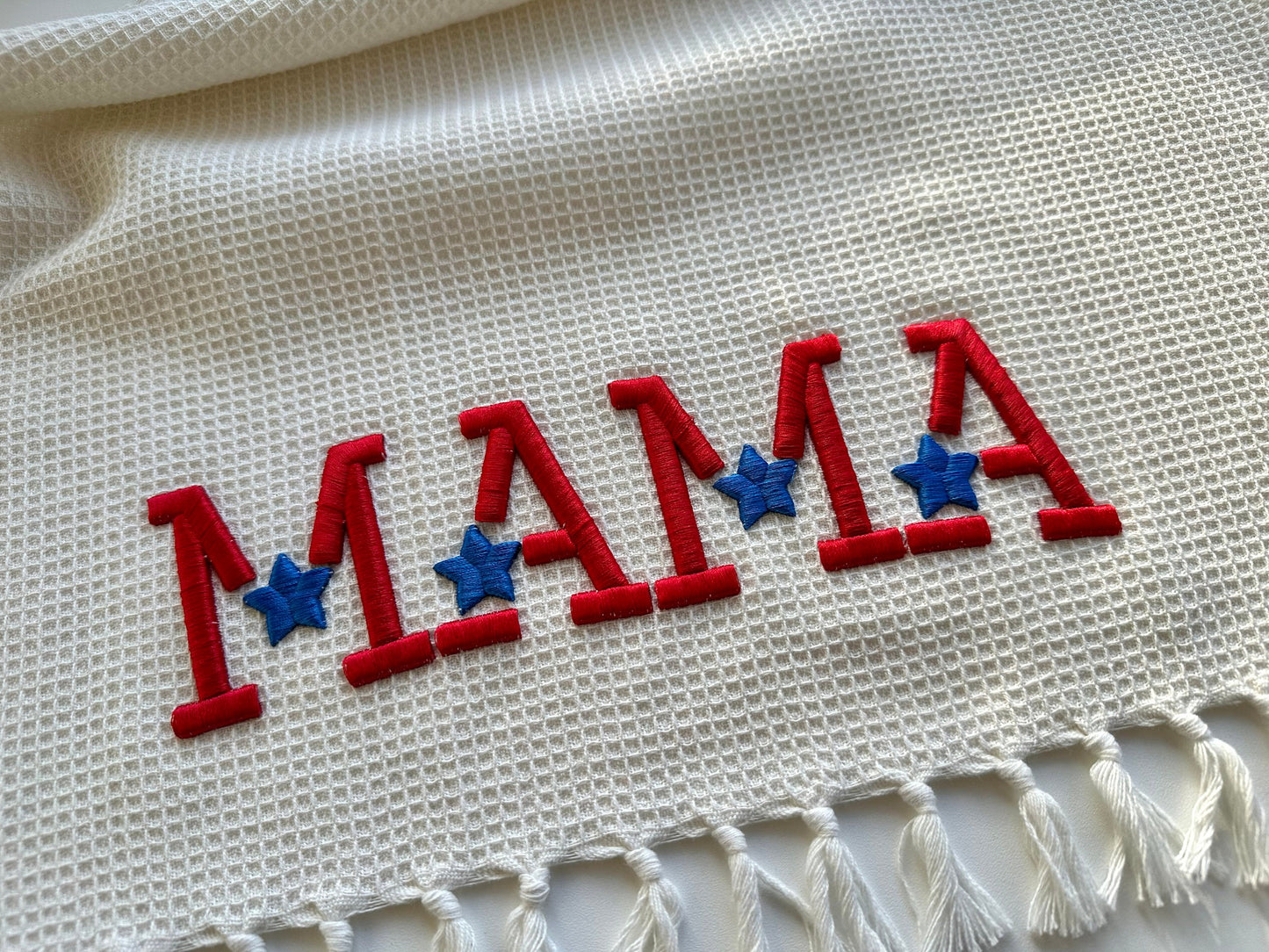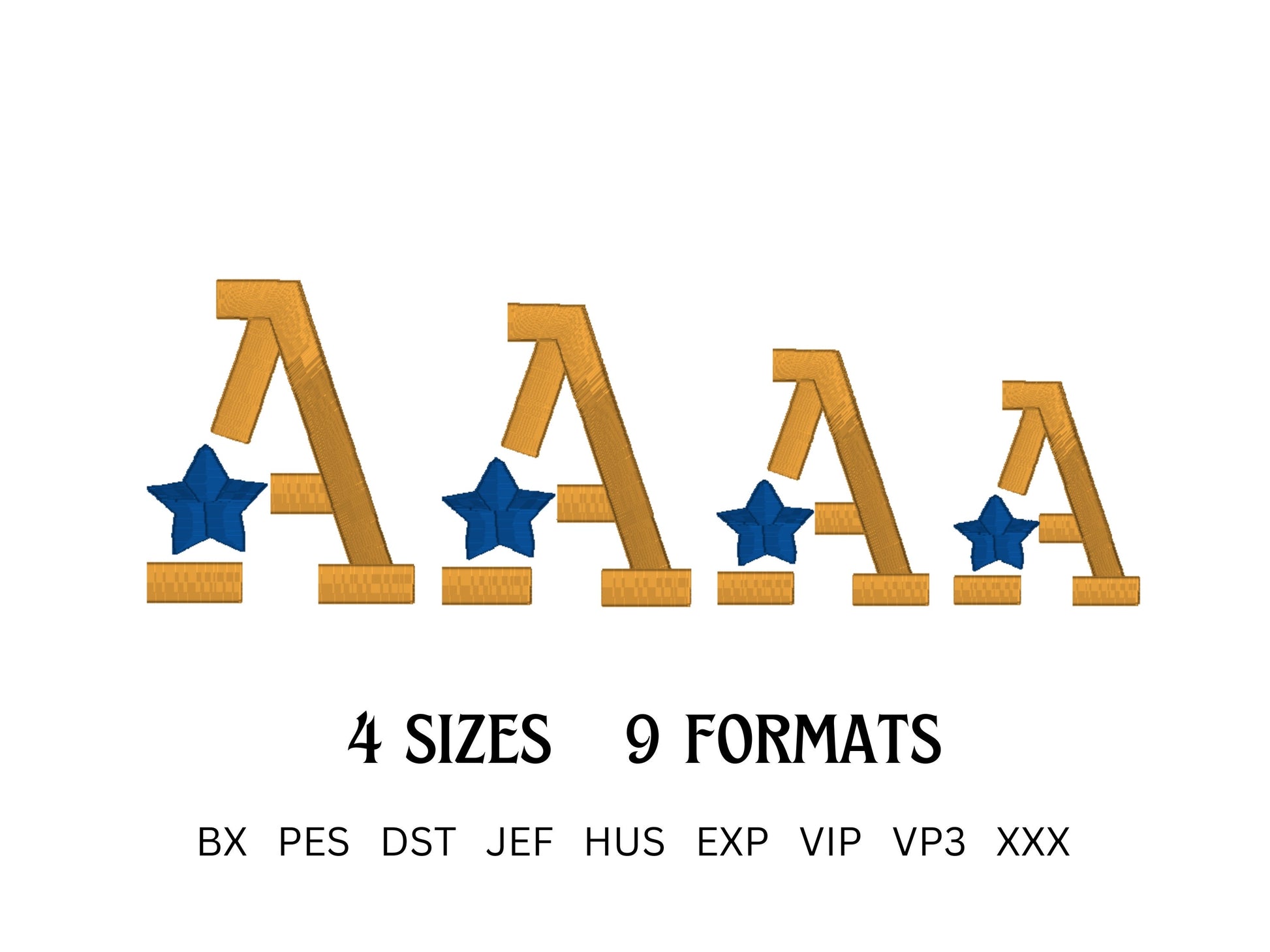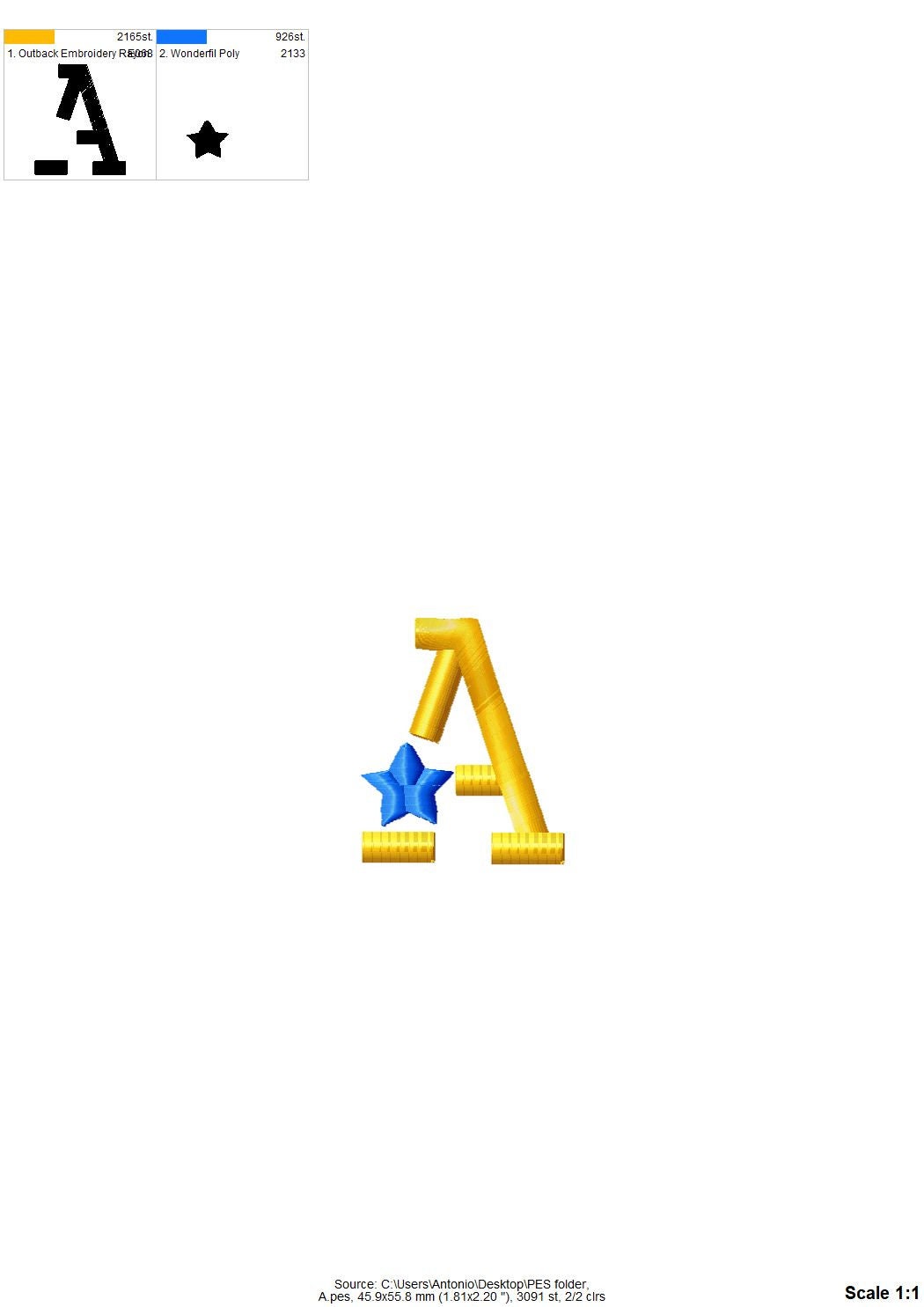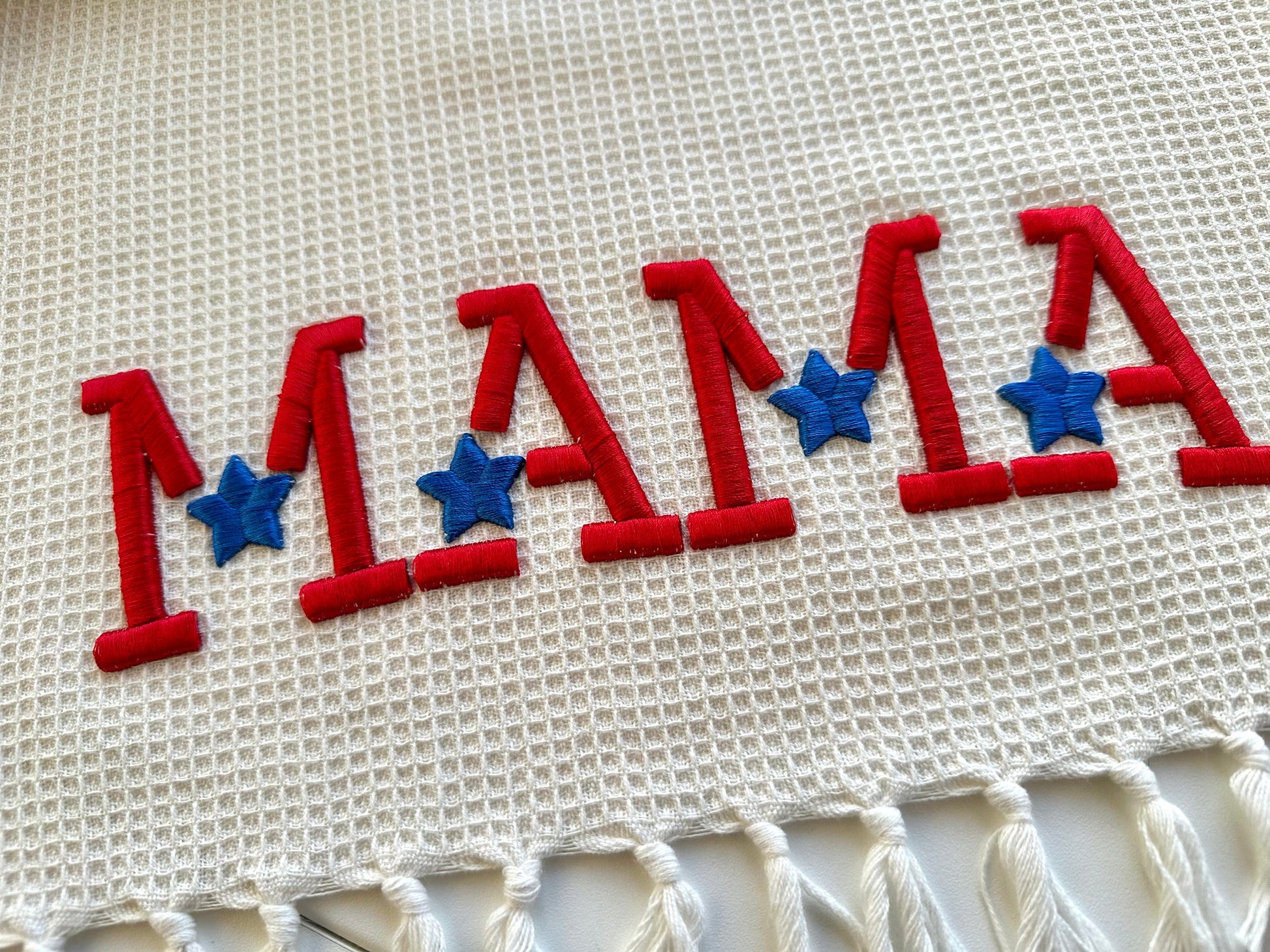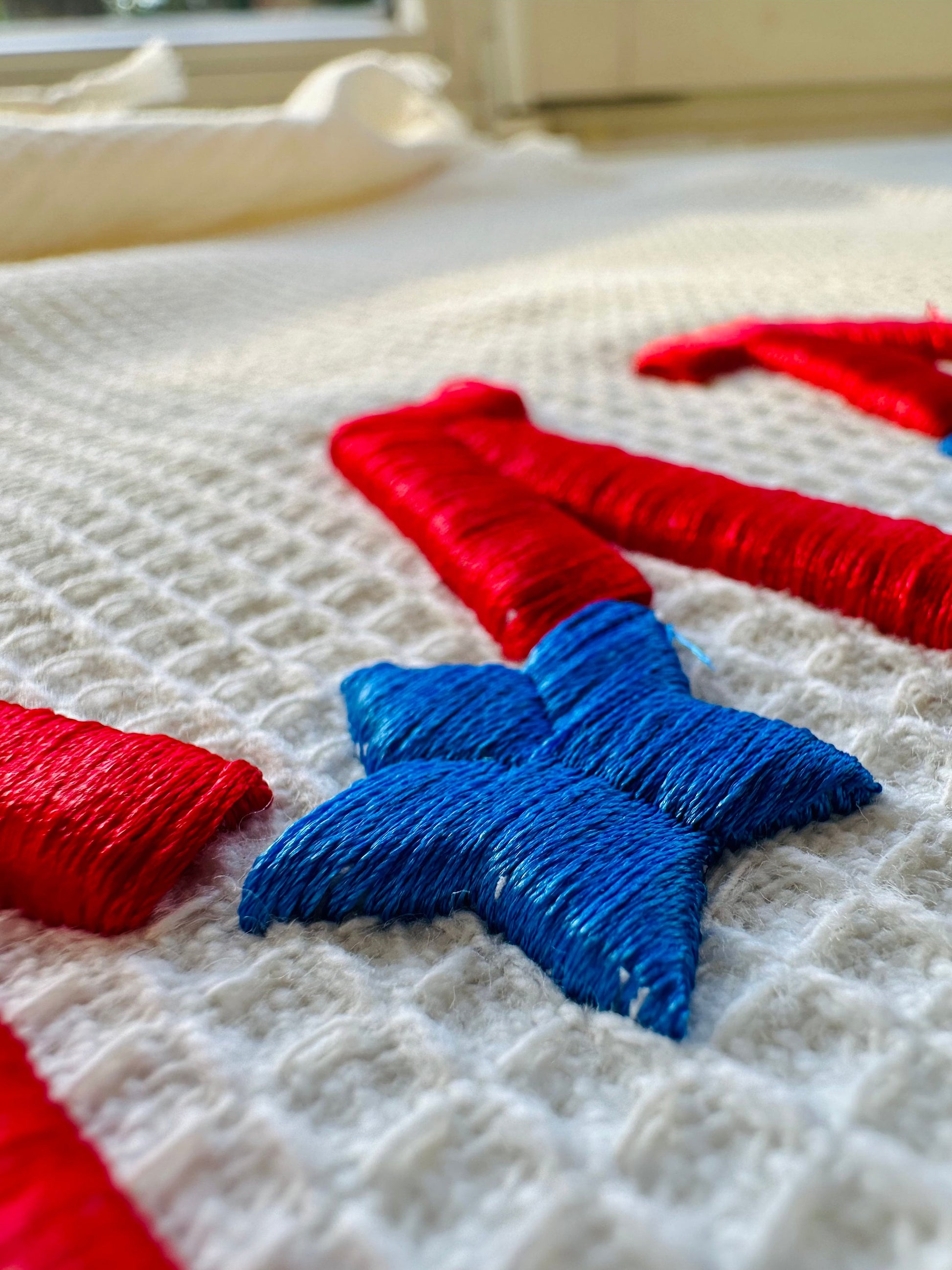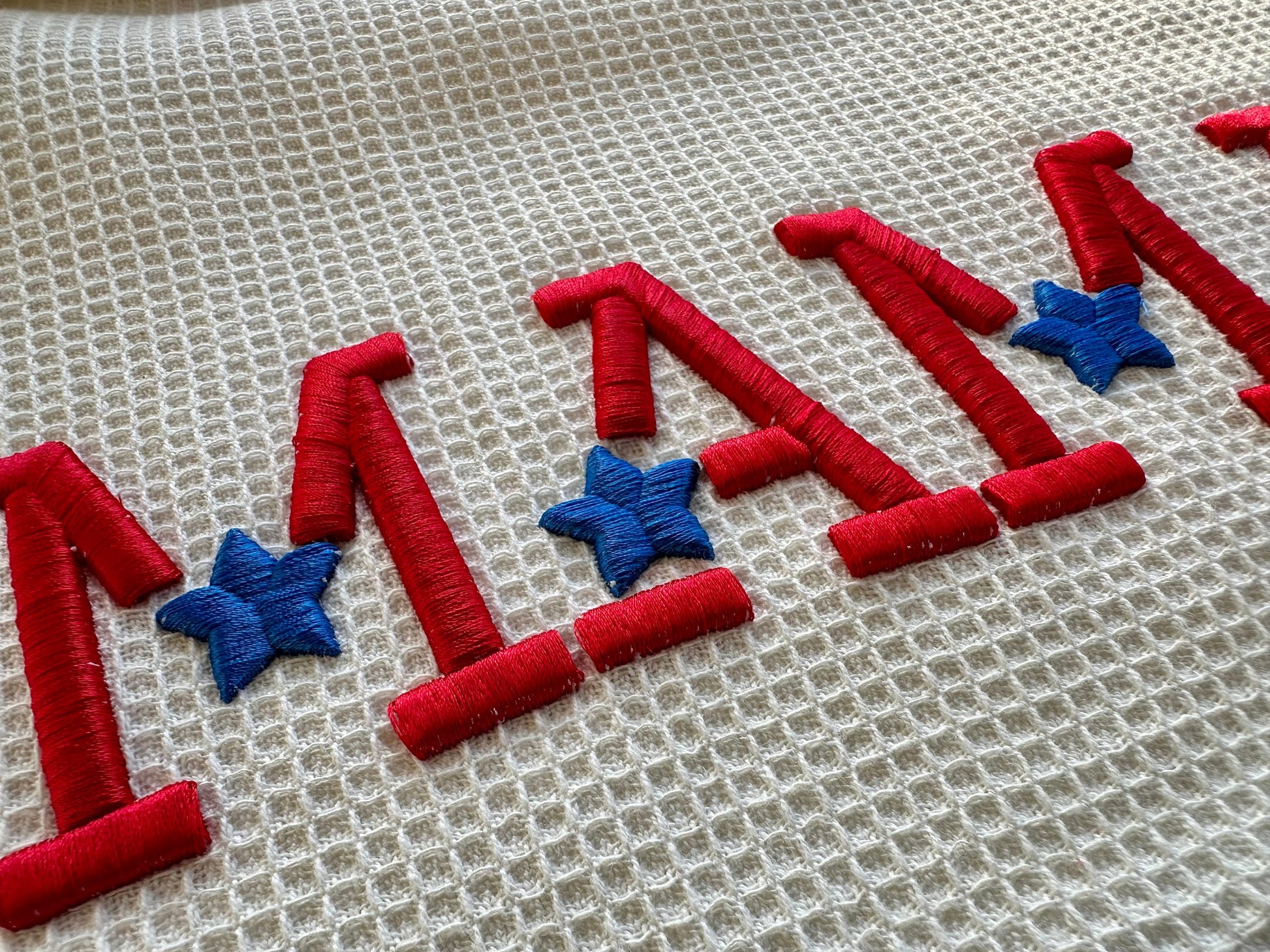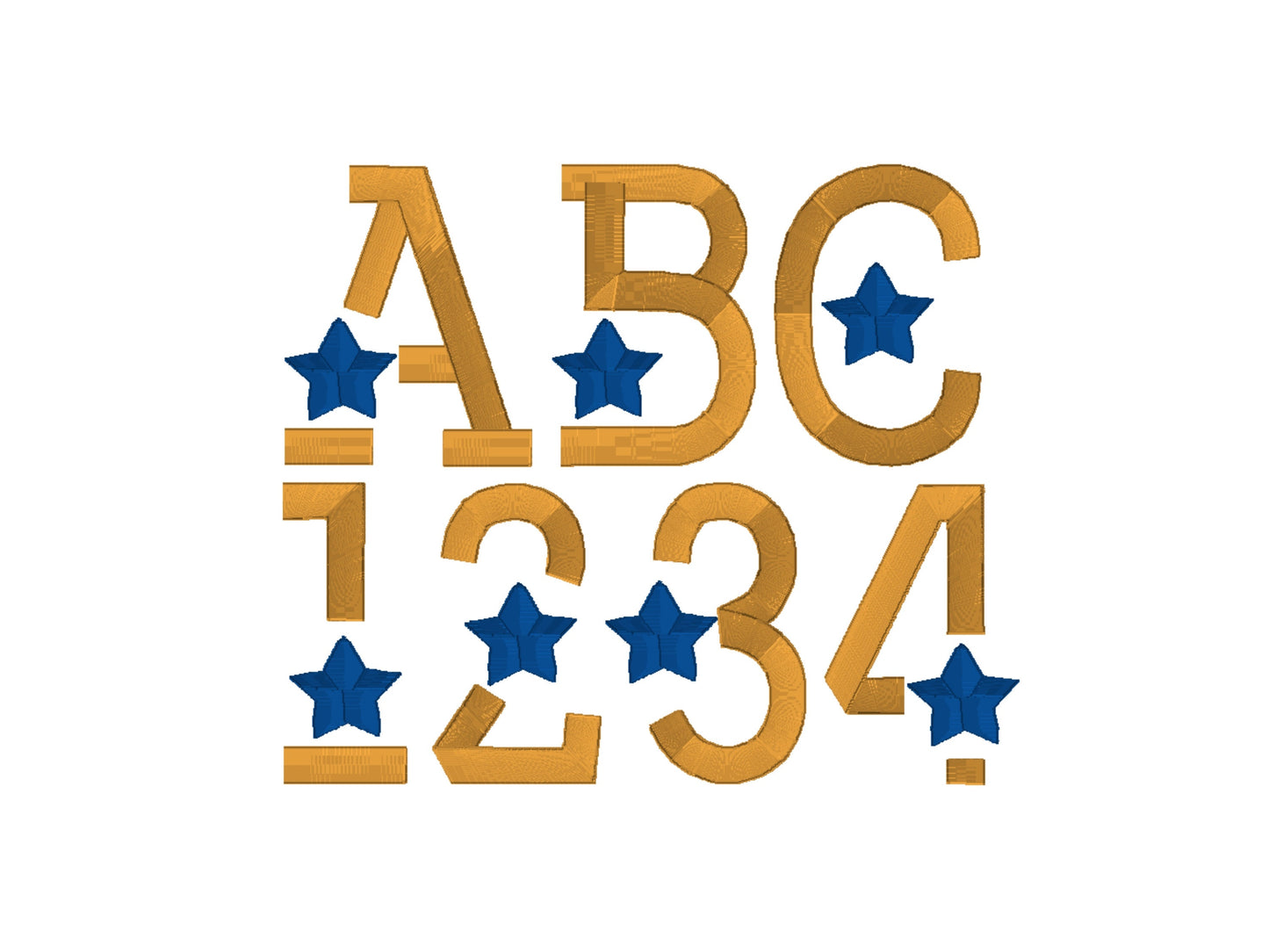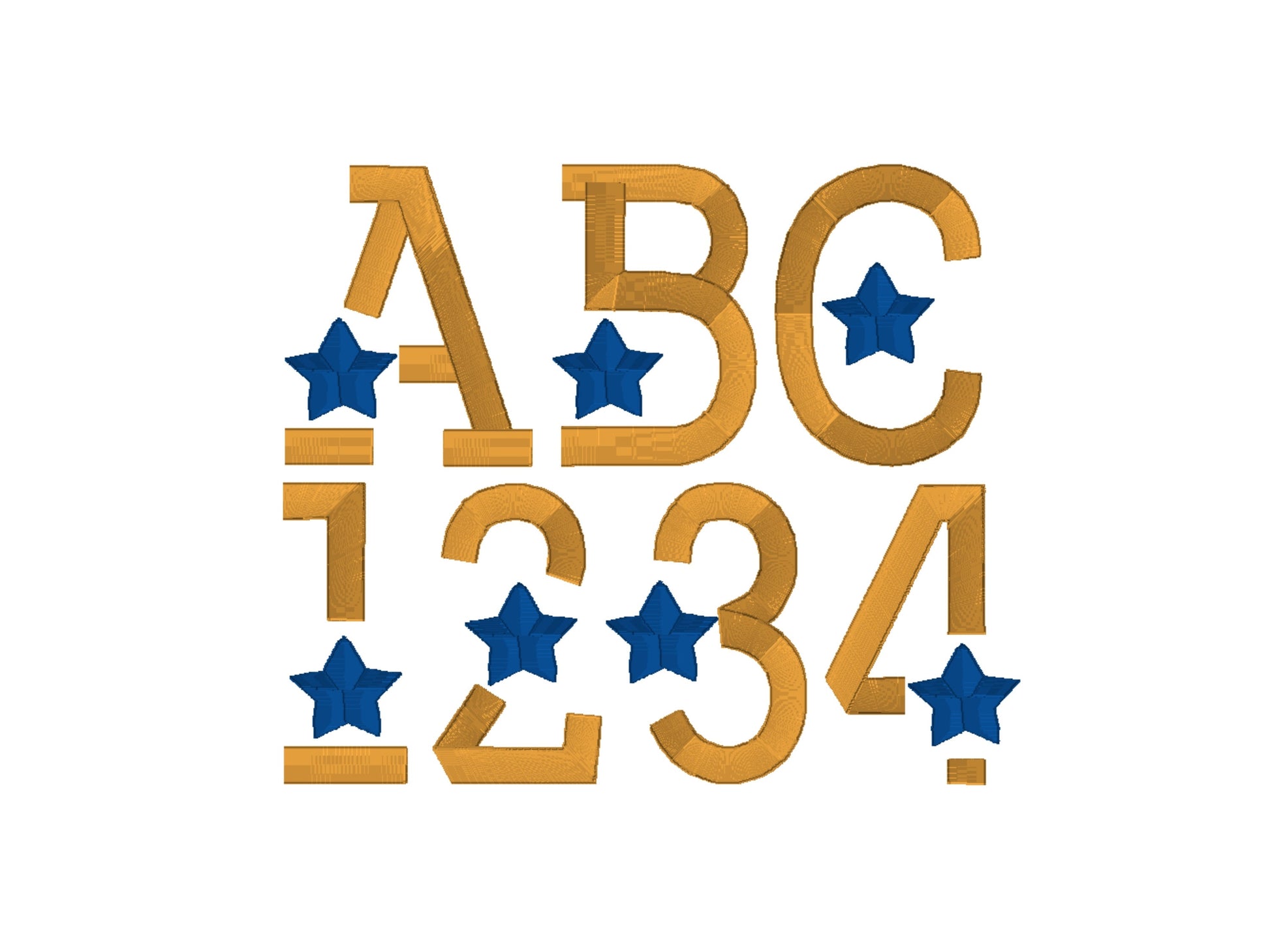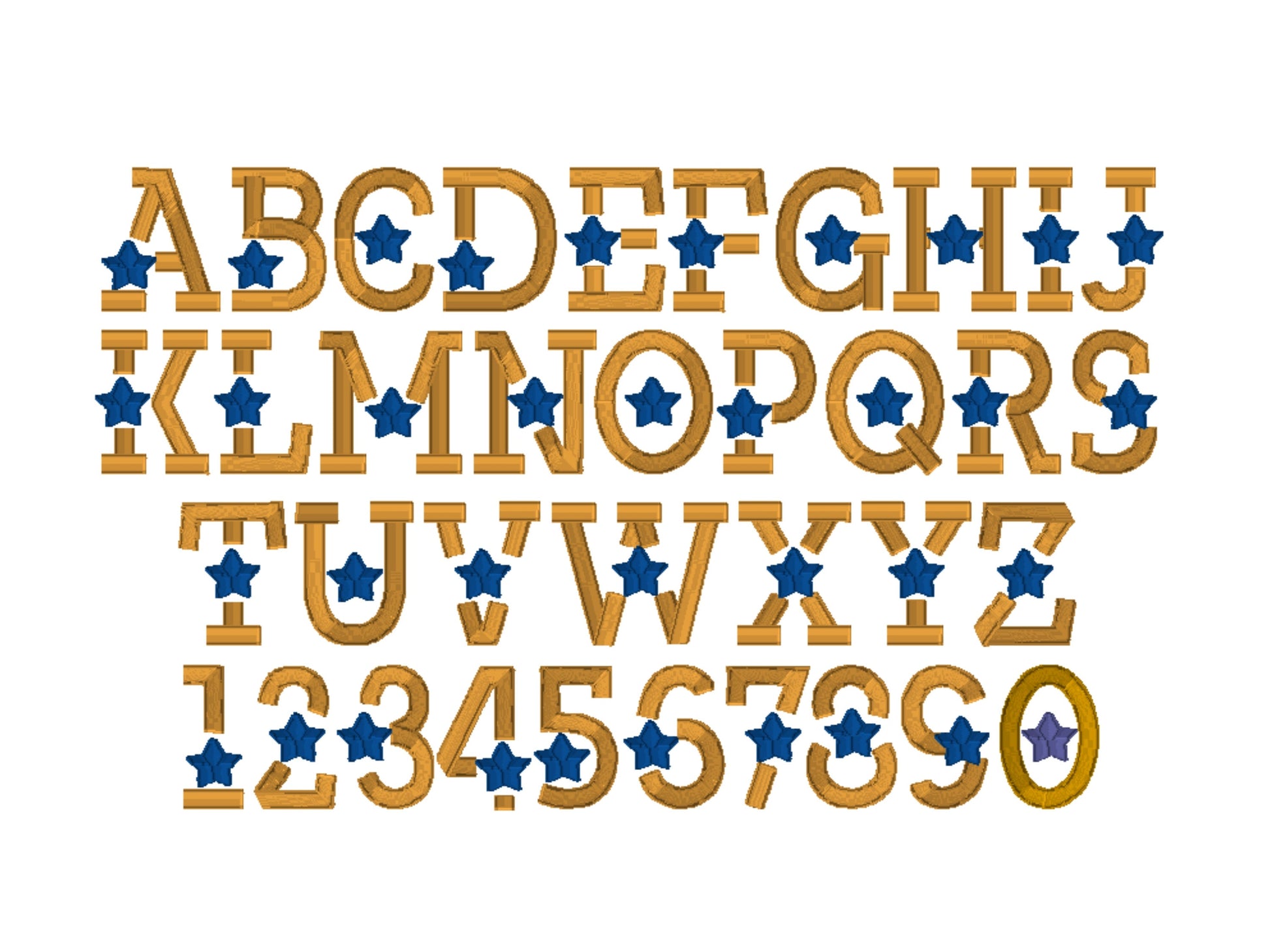
Puffy Foam Star Font
Or click to open the linkA raised 3D block font with little stars, stitched over puffy foam. Great for caps, jackets, sweatshirts and bold monograms.
The letters come in four sizes: 1.9, 2.2, 2.6 and 2.8 inches. Each letter is stitched over 3 mm puffy foam, so it stands up from the fabric. Includes uppercase letters A to Z and numbers 0 to 9.
- 3D puffy foam star block font
- Uppercase A to Z, numbers 0 to 9
- 4 sizes: 1.9, 2.2, 2.6 and 2.8 in